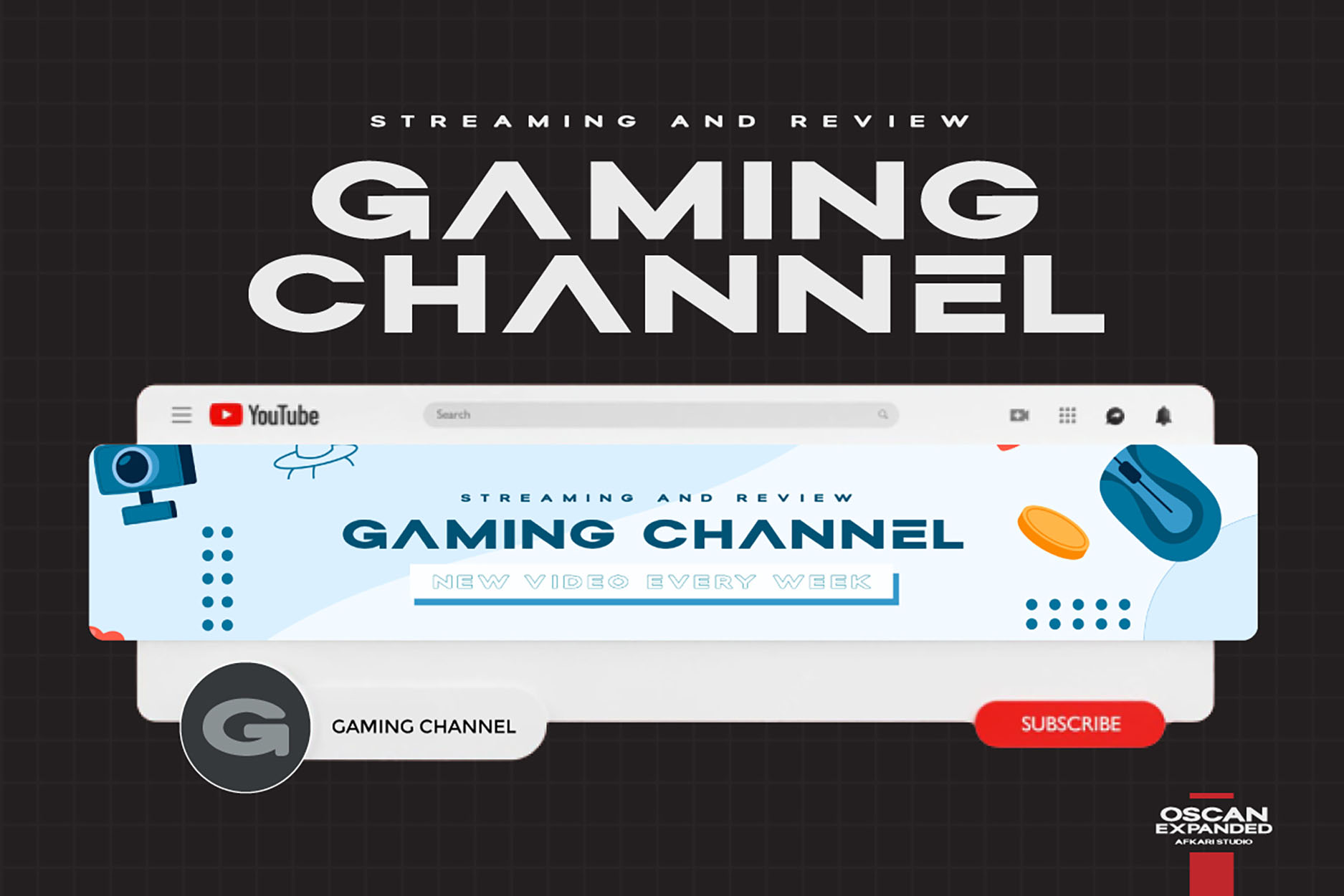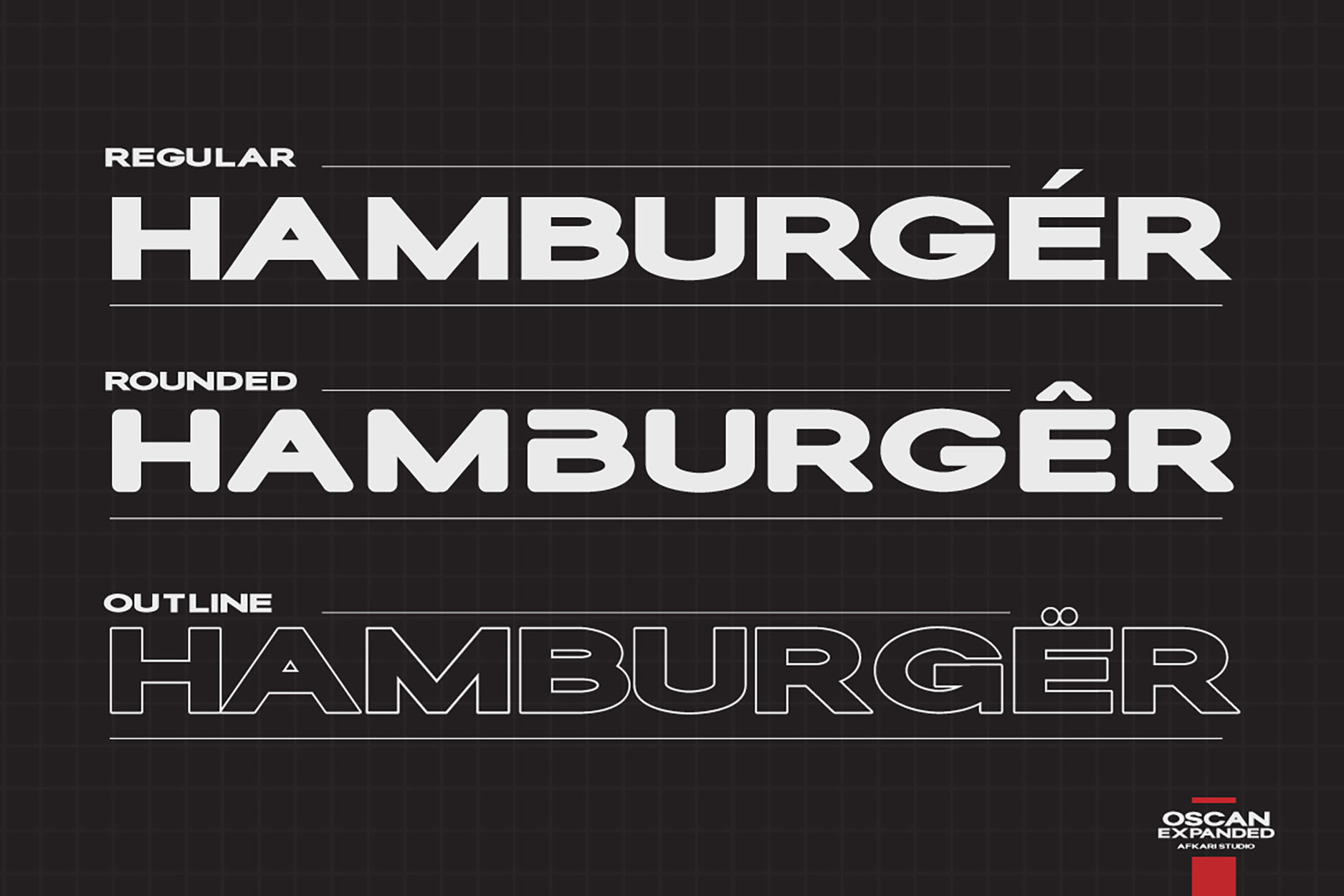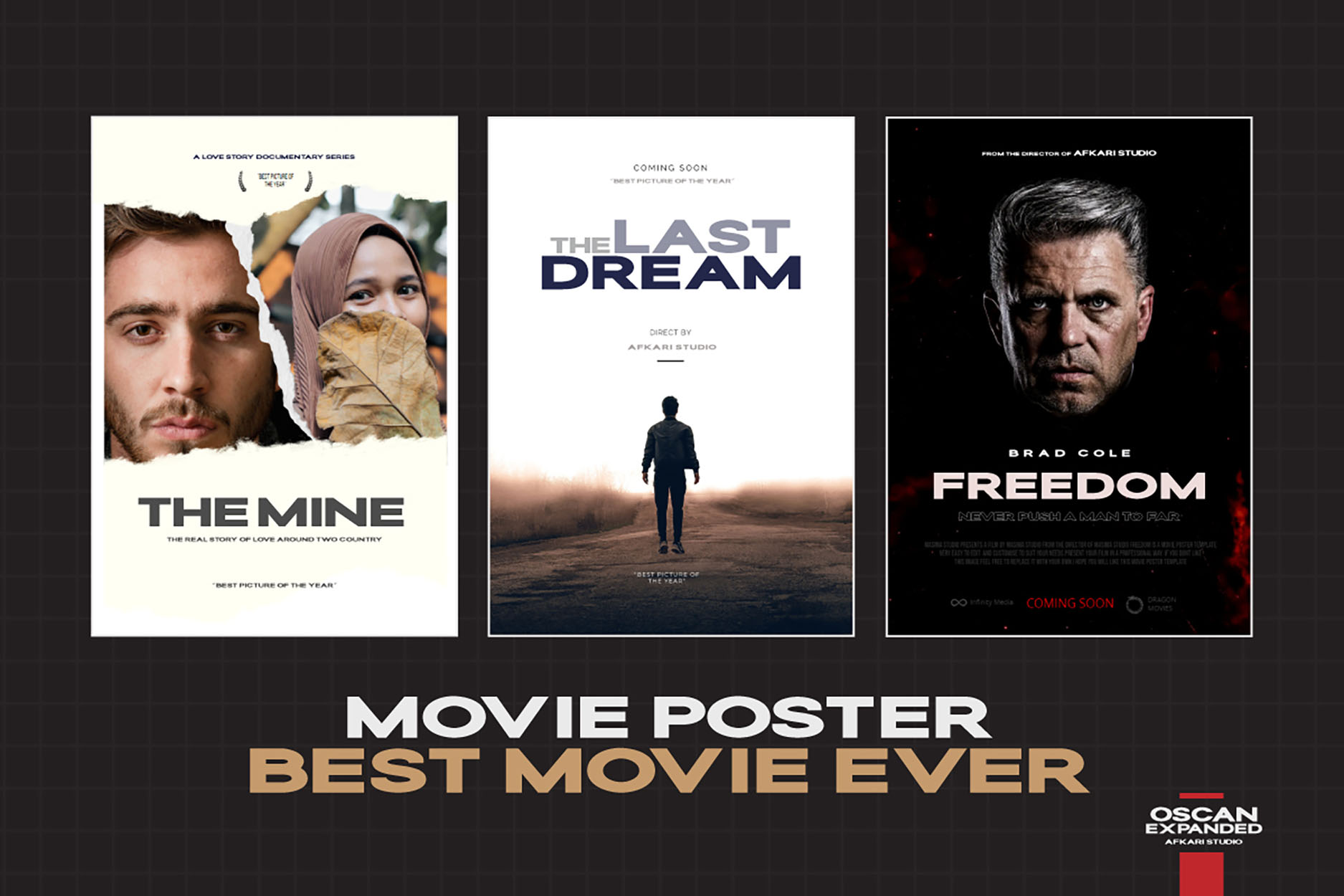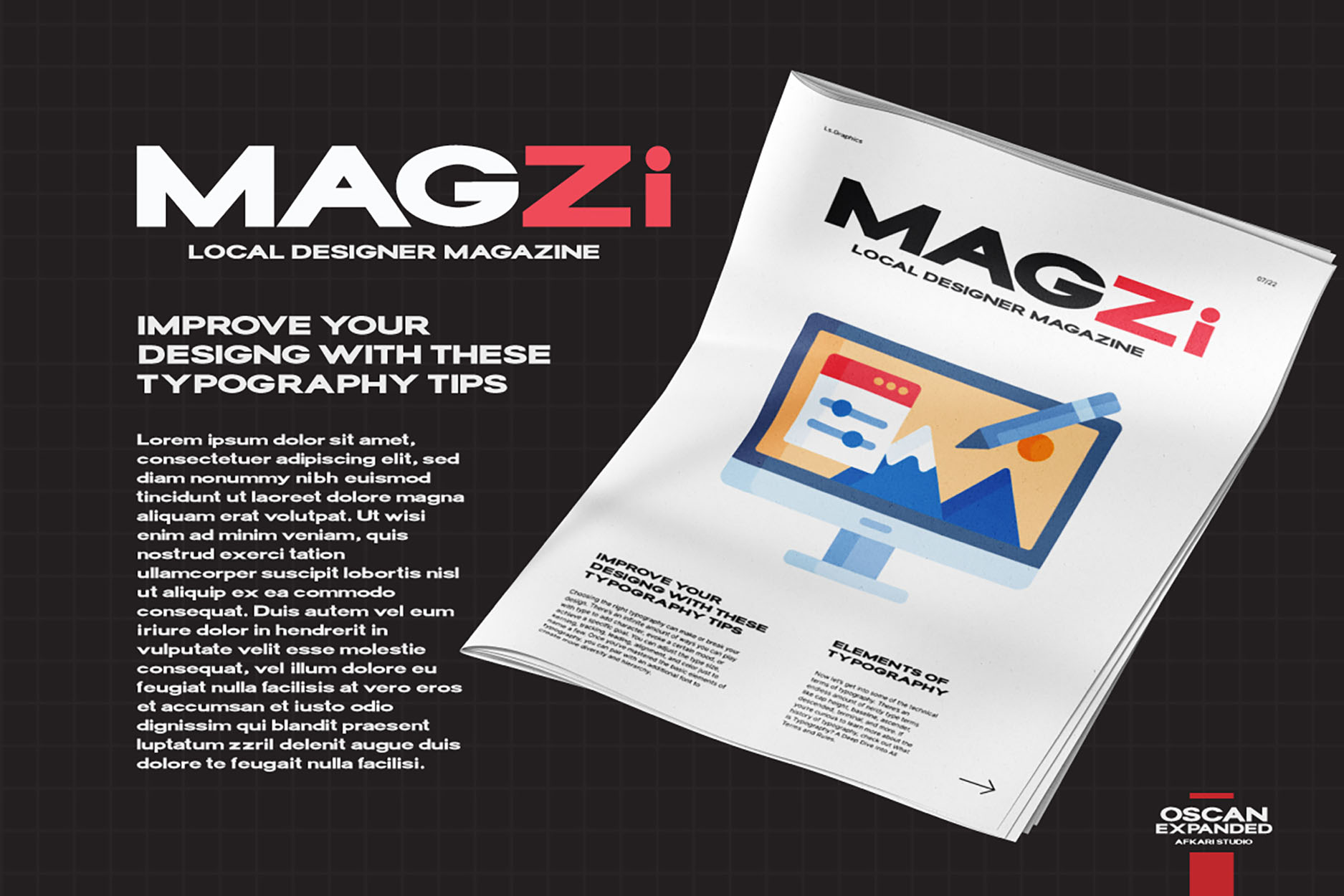
Oscan Expanded Font
Oscan Expanded Sans Serif Font is A special display sans serif font with expanded style and lowercase included. This font also contains some alternates to make your design cooler. The oscan expanded font is perfect for headline titles, fashion, magazines, logos, branding, photography, invitations, poster, movie title, quotes, blog headers, advertisements, postcards, book covers, websites, branding, etc.